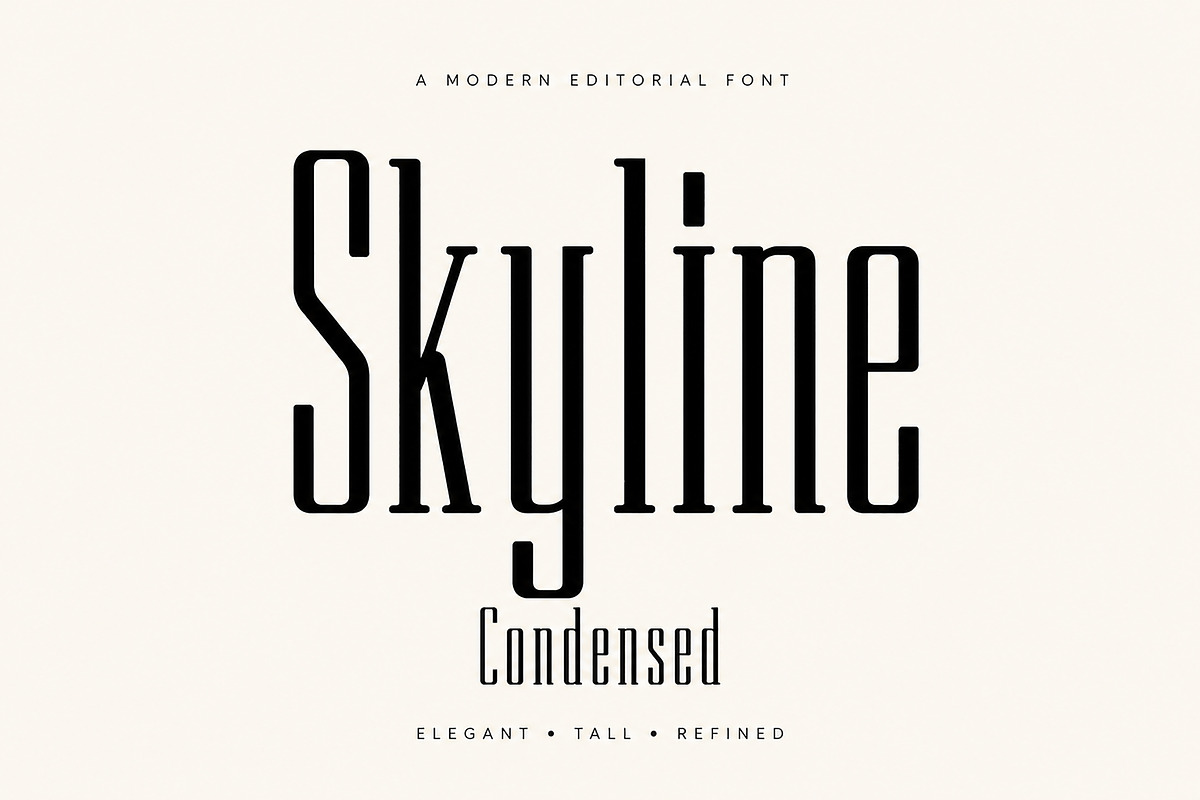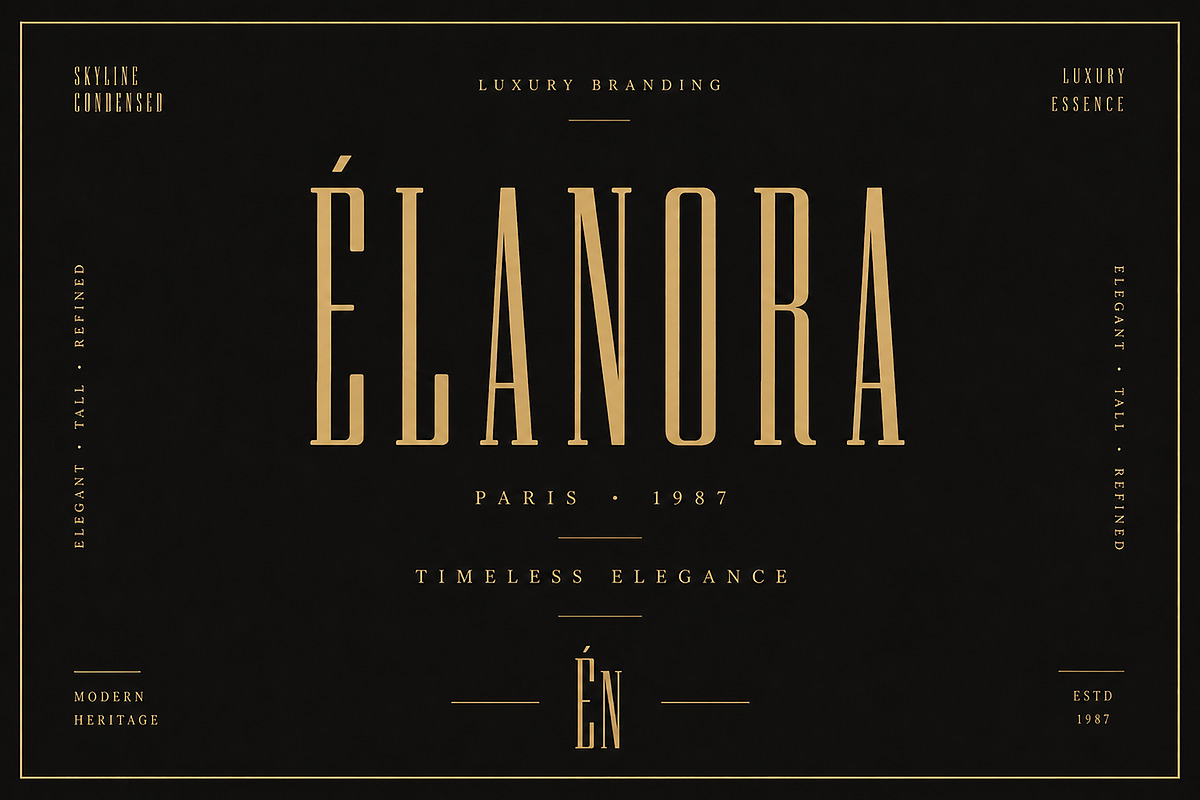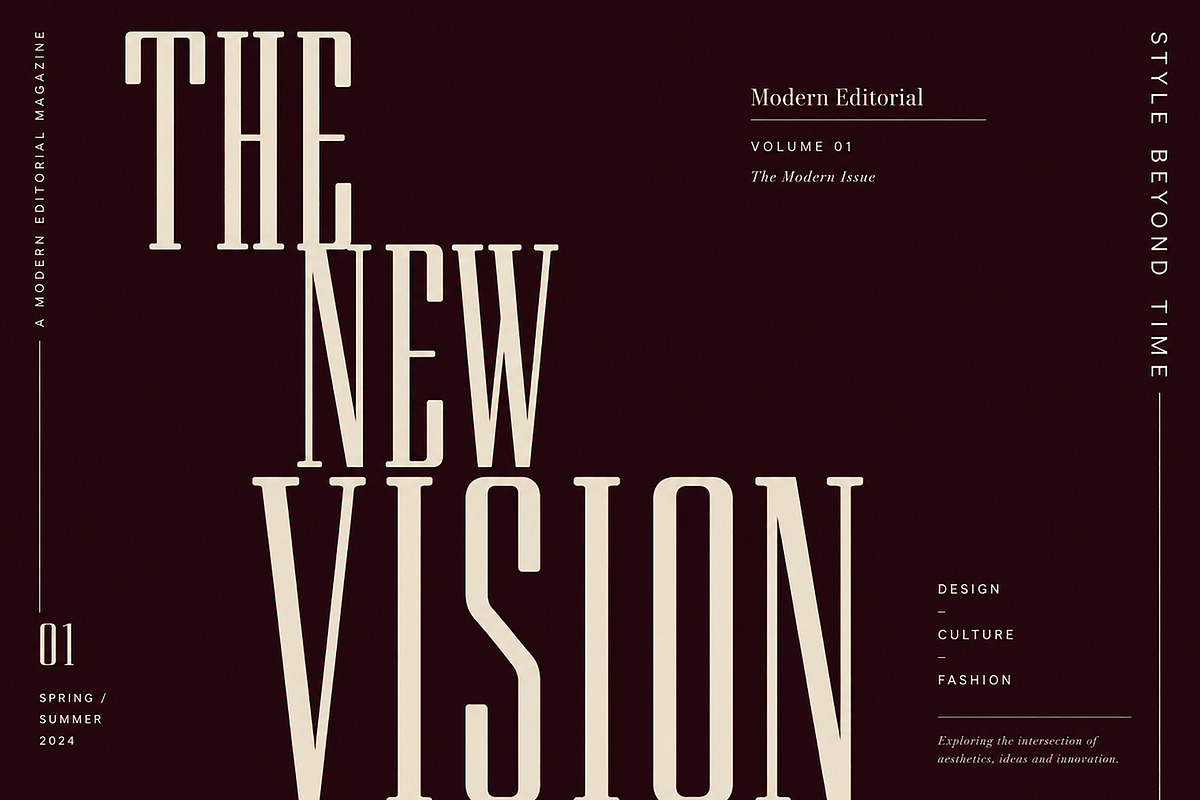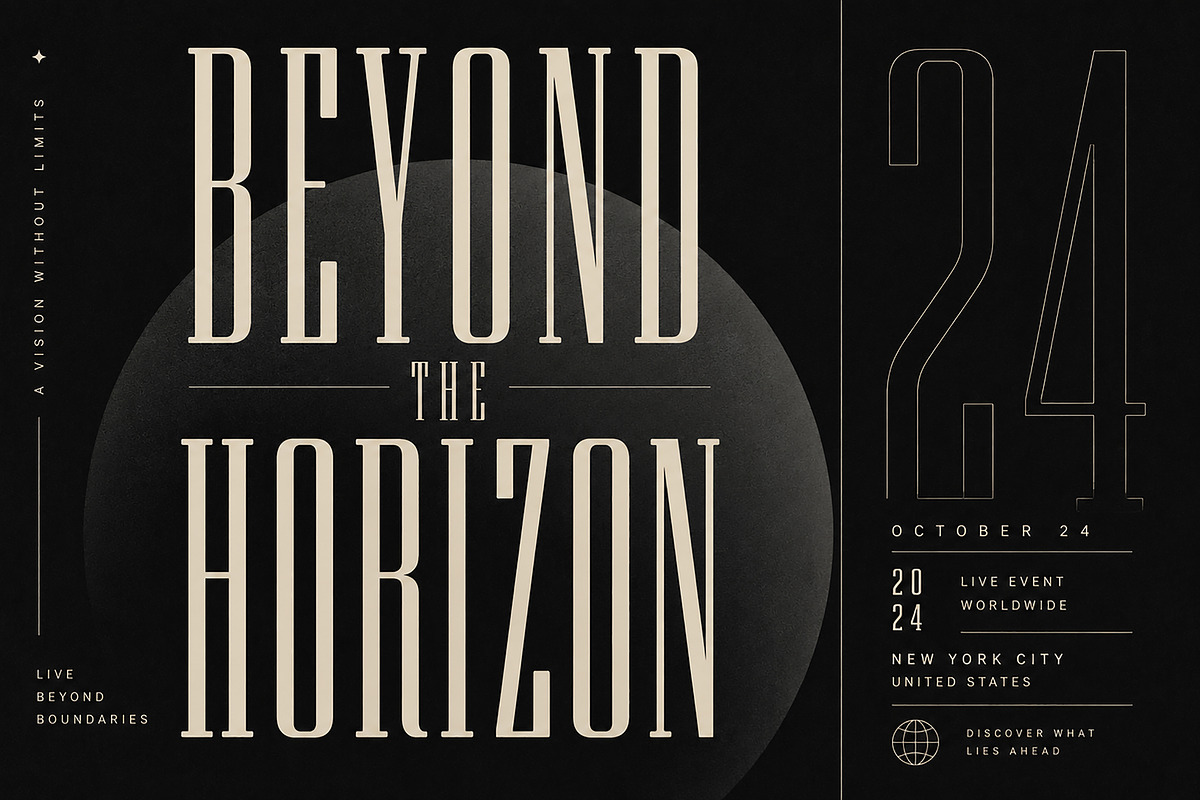
Skyline Condensed – Font
Skyline Condensed – Modern Editorial Display Font
Skyline Condensed is a modern display font featuring tall, narrow letterforms with a clean and sophisticated aesthetic. Designed for bold headlines and premium branding, it delivers a striking editorial look while maintaining excellent readability.
Inspired by contemporary fashion, luxury branding, and modern magazine typography, Skyline Condensed is the perfect choice for designers who want to create elegant, high-impact visuals. Its condensed structure helps maximize space without sacrificing style, making it ideal for both digital and print projects.
Whether you're designing luxury logos, magazine covers, creative posters, branding systems, packaging, or advertising campaigns, Skyline Condensed adds a refined and professional touch to every design.
Luxury Branding
Fashion Branding
Editorial Design
Magazine Covers
Display Headlines
Beauty & Cosmetic Branding
Perfume Packaging
Jewelry Branding
Premium Packaging
Posters
Album Covers
Advertising
Website Headers
Creative Campaigns
Boutique Branding
Visual Identity Design
Modern Display Font
Condensed Letterforms
Elegant & Clean Design
Strong Editorial Style
Perfect for Headlines
Professional Quality
Why Choose Skyline Condensed?
Skyline Condensed is crafted for designers who appreciate clean typography with a premium editorial feel. Its modern condensed style makes it versatile enough for luxury branding, fashion projects, creative posters, and sophisticated visual identities. With its elegant proportions and bold presence, this font helps your designs stand out effortlessly.